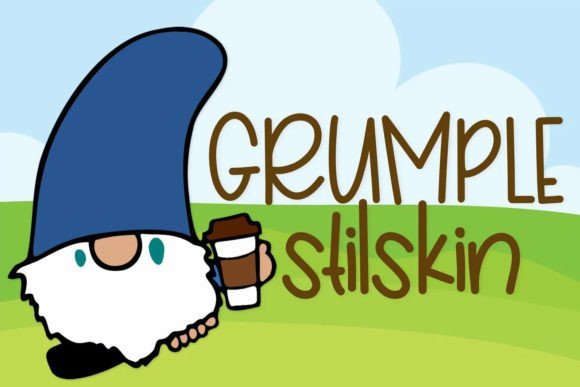
Introducing Grumplestilskin, a quirky handwritten font.
Grumplestilskin can be used with all caps or lowercase, with adorable connecting letters for a truly handwritten feel Grumplestilskin has cleaned nodes for cutting.
Grumplestilskin Font offers exceptional quality and versatility, making it a valuable addition to your design toolkit. Whether you’re creating for personal projects or commercial use, Grumplestilskin Font delivers professional results.